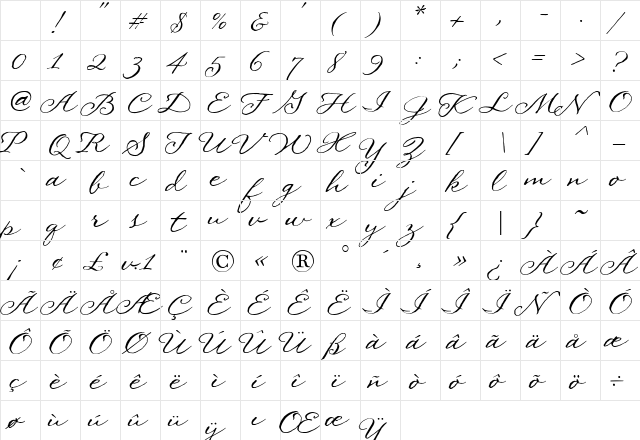
PegsannaHMK Regular Free Font
PegsannaHMK Regular
Design Context for PegsannaHMK
PegsannaHMK is a composed and adaptable typeface that performs quietly and consistently across a wide range of design contexts.